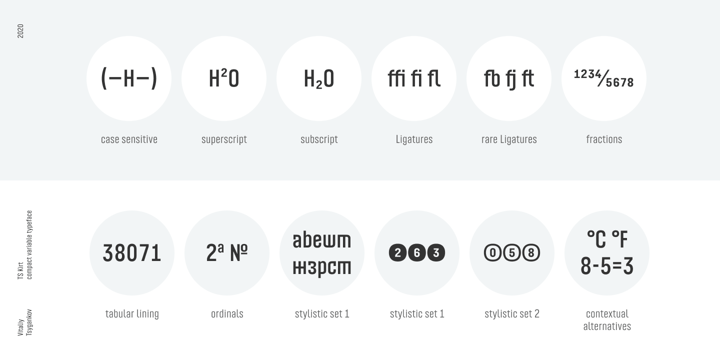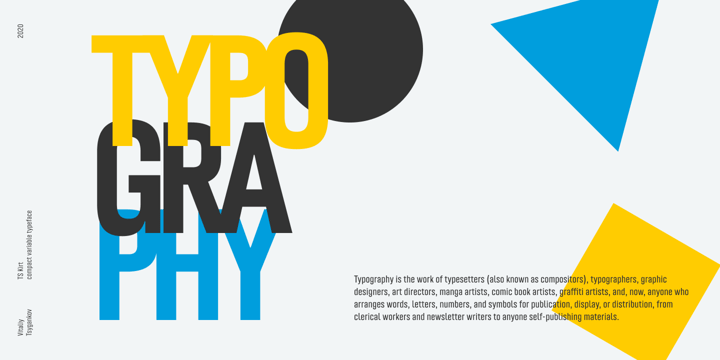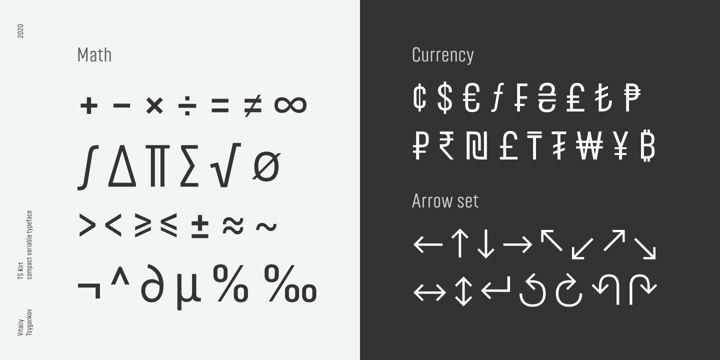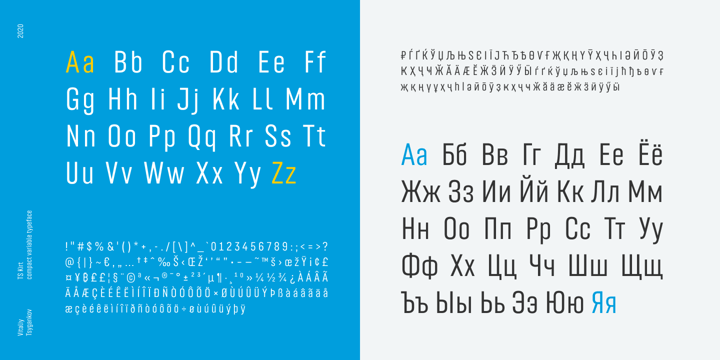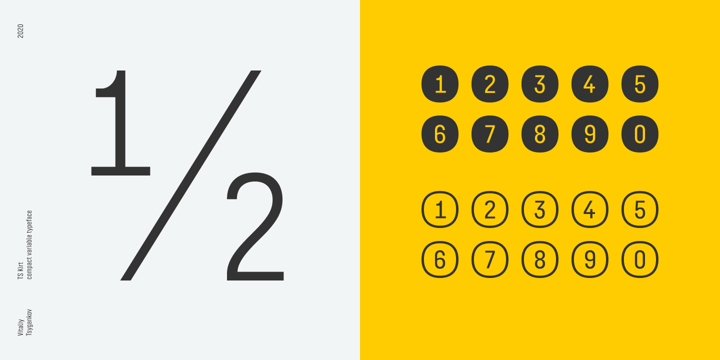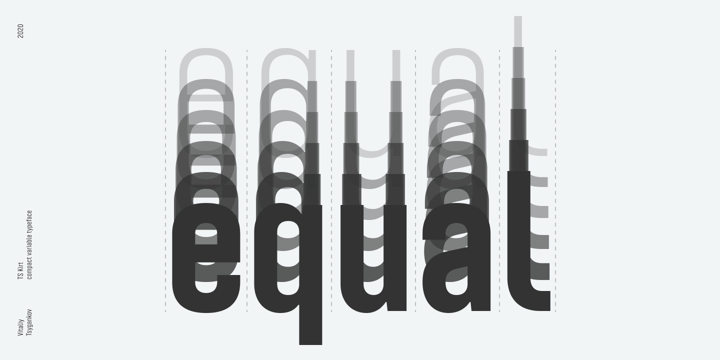
TS Kirt
von Vitaliy Tsygankov
Die Schriftfamilie TS Kirt wurde von Vitaliy Tsygankov entworfen und von Vitaliy Tsygankov veröffentlicht. TS Kirt enthält 7 Stile und Familienpaketoptionen. Mehr über diese Familie
TS Kirt - variable sans-serif typeface with narrowed proportions. The font is suitable for titles, packaging, printing, websites, infographics, and advertising.
The TS Kirt font family consists of 6 faces and as well as a variable version.
The advantage of the font - the same width character in any style. When switching the face, the length of the line will not change.
Designer: Vitaliy Tsygankov
Foundry: Vitaliy Tsygankov
Interface designer and type designer from Moscow. Before entering the profession, he worked as a graphic designer. He became interested in letters in 2015. In 2016, he released his first font. In 2019, he completed a six-month “Font design course” by TypeType Education, where he gained skills in font design. Since 2020, he has been releasing his own fonts on MyFonts. “To me, a font is a complete statement; the point at which your job is 100% done. I can compare a font to a literary work, a painting, or a piece of music. It’s great that my fonts can be used by people living in different countries and speaking different languages. A text is the best way of communication invented by man.”